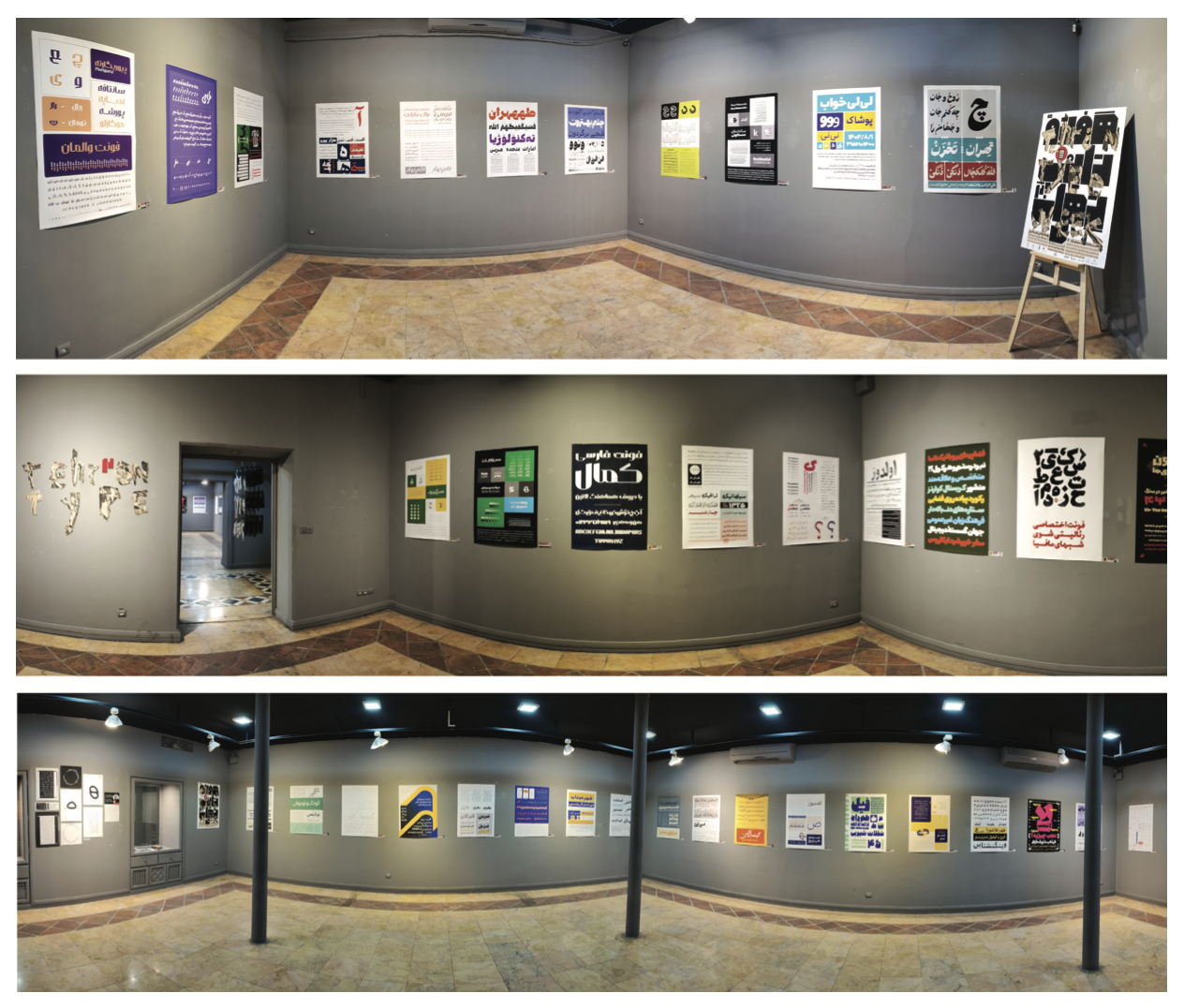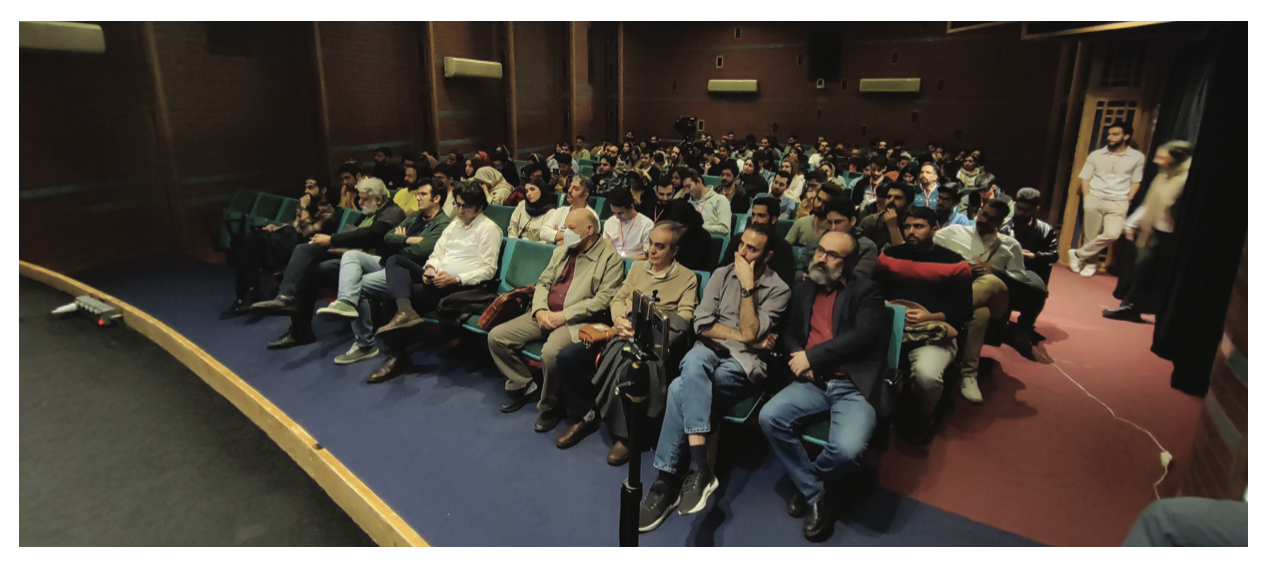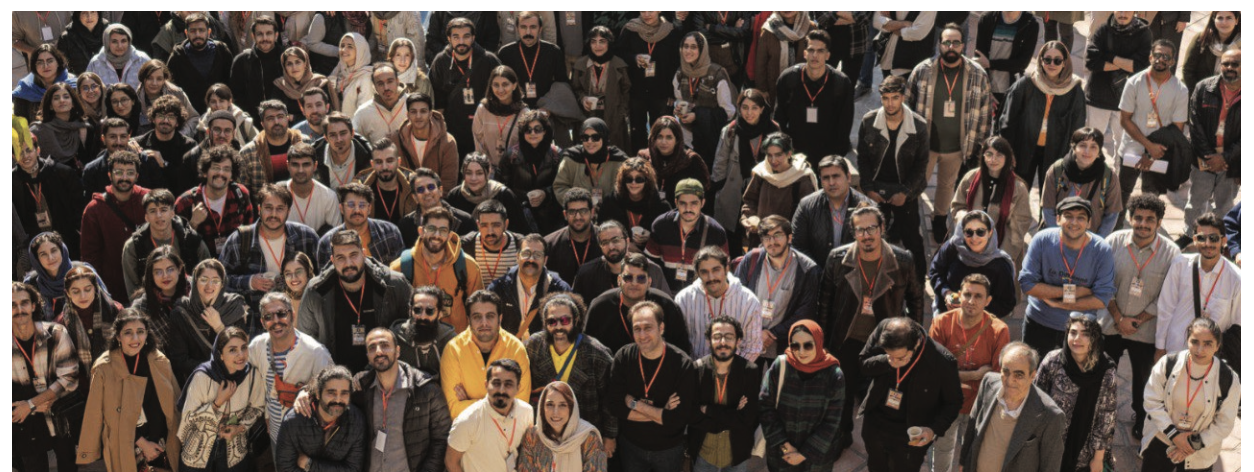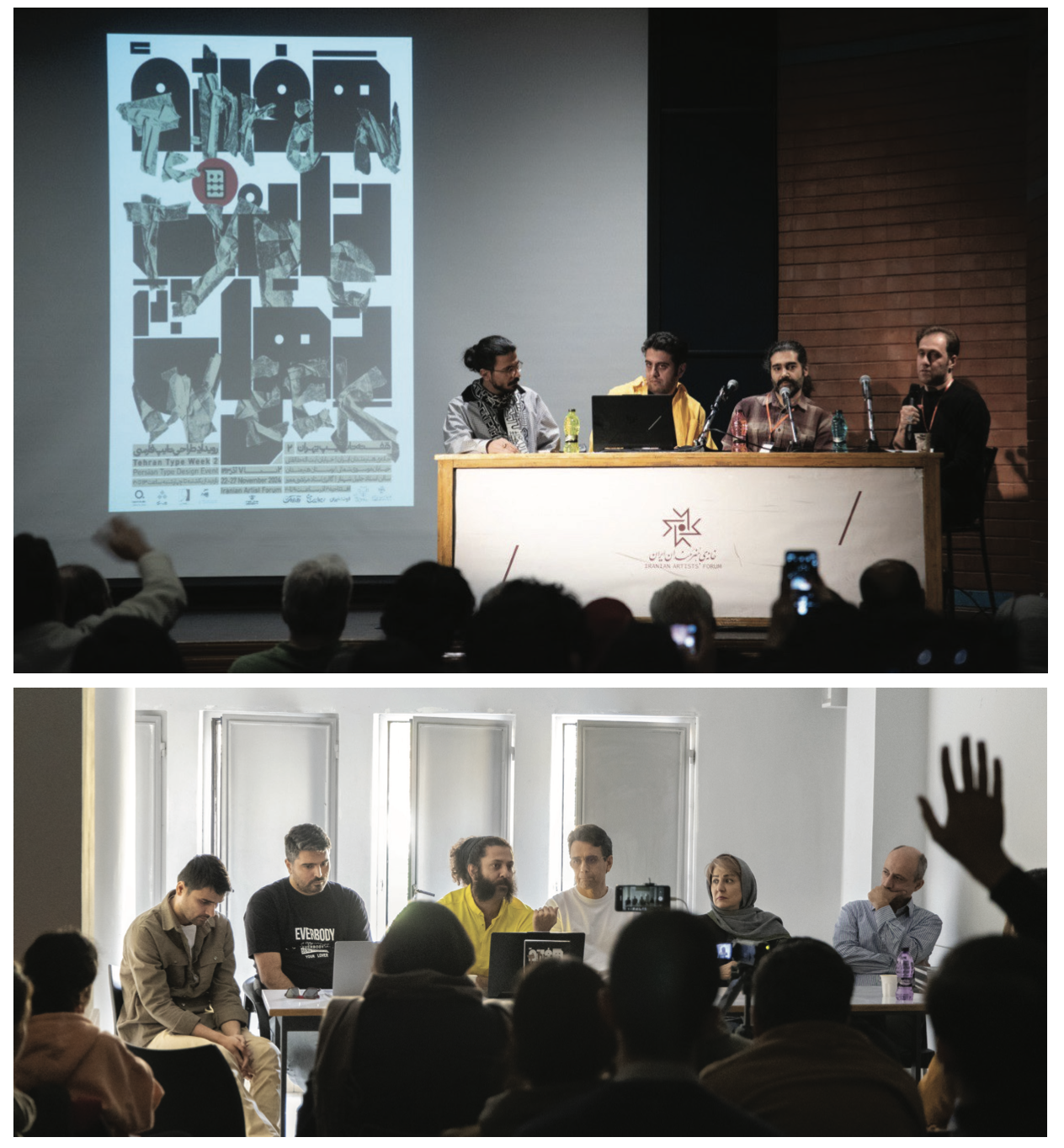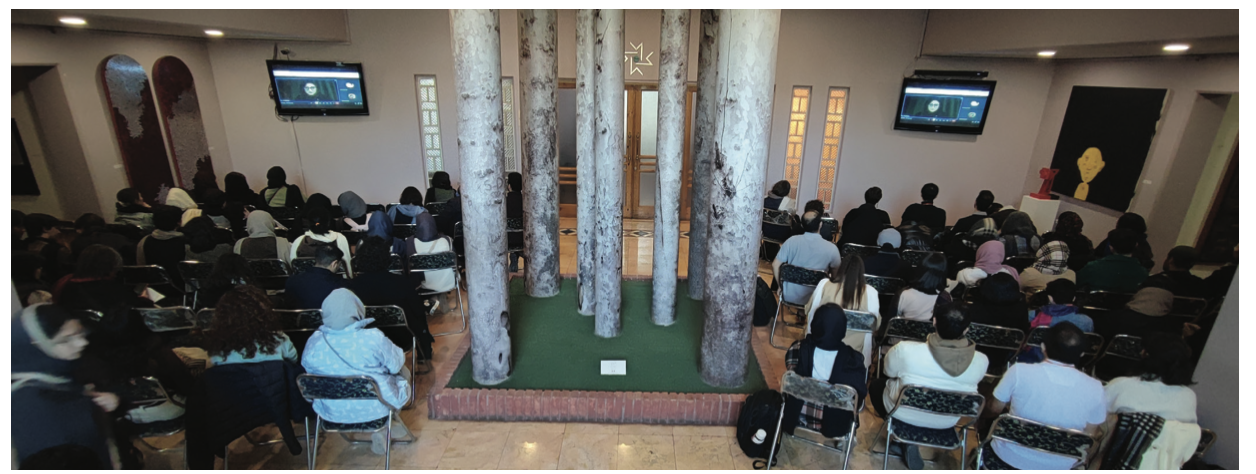
Tehran Type Week - A Platform for Advancing Persian and Arabic Typography
The Importance of Persian and Arabic Typography
For centuries, Persian calligraphy has played a fundamental role in Iranian art and visual culture. The intricacy of Persian script, shaped by master calligraphers over generations, has influenced artistic expression in manuscripts, architecture, and visual design. However, the introduction of Western printing technologies in Iran brought substantial transformations to Persian typography. The shift from handwritten calligraphy to mechanical typesetting necessitated adaptations that often compromised the fluidity and elegance of traditional letterforms.
»With the advent of movable type printing in Iran, the detailed craftsmanship of Persian calligraphy gave way to more simplified forms that aligned with printing technology. Over time, this led to a departure from the script’s original aesthetic integrity«
Objectives of Tehran Type Week
Tehran Type Week was founded to address the scarcity of comprehensive and credible educational resources in the field of Persian typography. The event creates an opportunity to document, share, and exchange knowledge, providing reliable references for scholars, designers, and industry professionals.
By bringing together experts in Persian and Arabic typography, the event fosters dialogue on historical, contemporary, and future trends. The event emphasizes the need for typefaces that respect the integrity of Persian and Arabic scripts while adapting to modern digital environments.
»For centuries, Persian calligraphy has played a central role in Iranian visual culture. However, with the advent of Western printing technologies, the adaptation of Persian letters to modern type systems has significantly altered their traditional forms«
The Exhibition: A Comparative Study of Persian and Arabic Typefaces
One of the core components of Tehran Type Week is its annual exhibition, which highlights the work of Iranian and Arabic type designers. This exhibition is not only a showcase of technical and artistic achievements but also an opportunity to explore how culture and language shape typography.
»By placing Persian and Arabic typefaces side by side, we aim to foster a comparative study that will help designers gain a deeper understanding of how script traditions influence form and readability.«
This year, we are extending an invitation for contributions of Arabic typefaces from the past five years to be displayed as part of this exhibition. By bringing these works into the same space, we hope to promote discussions that enhance mutual understanding and appreciation of Persian and Arabic typography.
Panels, Discussions, and Key Topics
Tehran Type Week features panel discussions, lectures, and workshops led by prominent figures in the field. The event covers a wide range of topics. The event also provides a networking platform for Persian and Arabic type designers to engage with font users, publishers, and researchers. These interactions are essential in shaping the future direction of typography in the region.
Recognizing Excellence in Persian Type Design
A highlight of Tehran Type Week is its awards program, which celebrates outstanding contributions to Persian typography. The 2024 exhibition featured a competitive selection of works by Persian type designers, with notable recognitions in the experimental category awarded to Karim Shaheen, Javid Safdari, and Amir Dehghanzadeh. Additional honorable mentions were given to Sobhan Shafiei, Karim Shaheen, and Hossein Badozareh.
»The presence of esteemed figures such as Master Seyed Mohammad Ehsai underscores the importance of this event. His visit, alongside the Iranian Graphic Designers Guild’s Board of Directors, highlights the growing recognition of Persian typography in contemporary visual identity.«
As the only active type design event in Iran, Tehran Type Week is committed to advancing the study, development, and appreciation of Persian and Arabic typography. The event not only seeks to honor the rich history of Persian calligraphy but also to explore how typography can adapt to modern communication needs without losing its cultural essence.